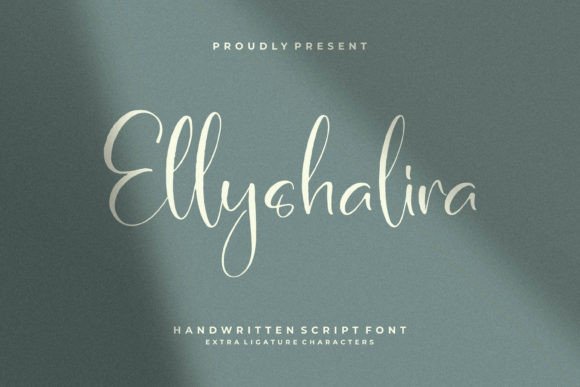
The Art of Handwritten Perfection
Have you ever found yourself rummaging through your childhood notebooks, reminiscing about the carefree days of scribbling with a favorite pen? The imperfections, the flourishes, the personal touch – it’s a feeling that never gets old. And that’s exactly what inspired the creation of the Ellyshalira Font, a beautifully handwritten font designed to evoke the same sense of warmth and personality in your designs.
Ellyshalira Font is more than just a font – it’s a premium signature taste that adds a touch of elegance to any project. Suitable for logos, branding projects, homeware designs, and so much more, this font is a valuable asset for designers looking to elevate their work. With its unique character and versatility, Ellyshalira Font is sure to become a go-to choice for creatives seeking to add a personal touch to their projects.
Ellyshalira Font Key Features
- Font Family: Ellyshalira is a unique, elegant script font designed for various applications.
- Unique Characteristics: The font features intricate, hand-drawn details, giving it a distinctive and artistic touch.
Designer Review: Ellyshalira Font
I’ve had the chance to work with Ellyshalira Font on a few projects, and I must say it’s a unique and eye-catching typeface. ✨ The flowing curves and elegant lines make it perfect for creating a sense of luxury and sophistication. It’s especially well-suited for high-end fashion brands, cosmetics, or any industry that wants to convey a sense of refinement.
Here are some of the features that work well:
- ✨ Unique and elegant design: Ellyshalira Font is sure to stand out from the crowd and make your brand look more premium.
- ✨ Versatile: It can be used for a wide range of applications, from headings and titles to body text.
- ✨ Legible: Despite its flowing design, Ellyshalira Font is still easy to read and understand.
- ⚠️ Limited character set: Ellyshalira Font is only available in a limited range of languages and characters, which may be a problem for brands that need to cater to a global audience.
- ⚠️ Not suitable for body text: While Ellyshalira Font is great for headings and titles, it may be too decorative for large blocks of body text, which can make it harder to read.
Overall, I think Ellyshalira Font is a great addition to any designer’s toolkit. While it may have some limitations, its unique design and versatility make it a great choice for projects that require a touch of elegance and sophistication.
Tip: Use Ellyshalira font for creative projects that require a unique, cursive touch.
Tip: Use Ellyshalira font for design projects that require a elegant, handwritten feel.
Tip: Use Ellyshalira font for presentations and documents that require a touch of elegance and sophistication.
Ellyshalira font is suitable for:
- Creative projects that require a unique, cursive touch.
Yes, the Ellyshalira Font is optimized for digital use and is compatible with a wide range of devices and screen resolutions. The font includes advanced features such as ligatures, fractions, and contextual alternates, making it ideal for use in digital applications, including websites, mobile apps, and e-books.